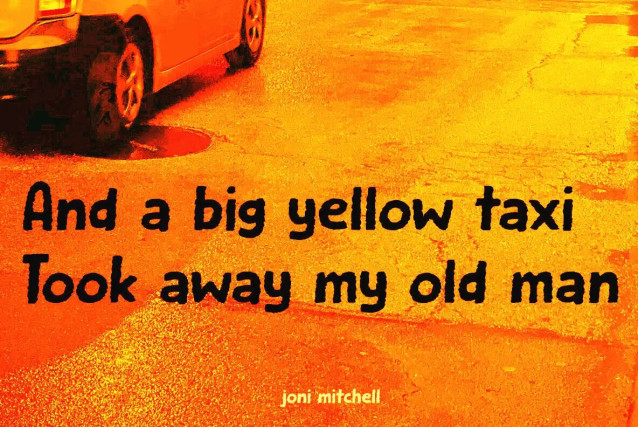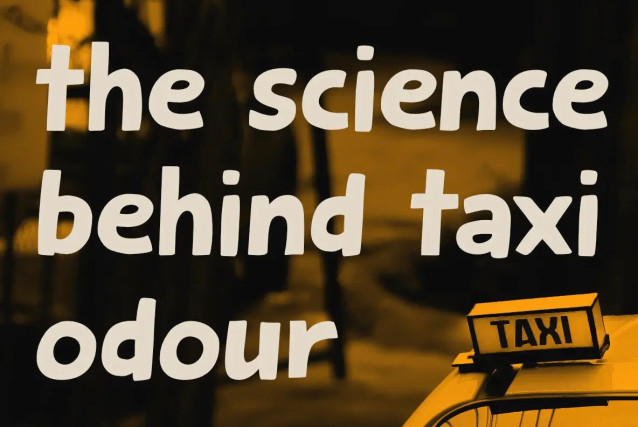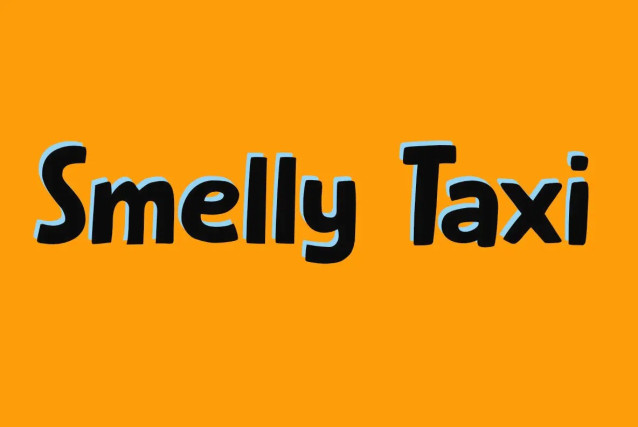
Smelly Taxi Font
Smelly Taxi Font is a handmade font. It comes in a smooth and a rough style. Suitable for any design needs : logo, branding, modern advertising design, logos, poster quote, book / cover Title, editorial design, website / blog, card, t-shirts, and any hand-lettered needs.